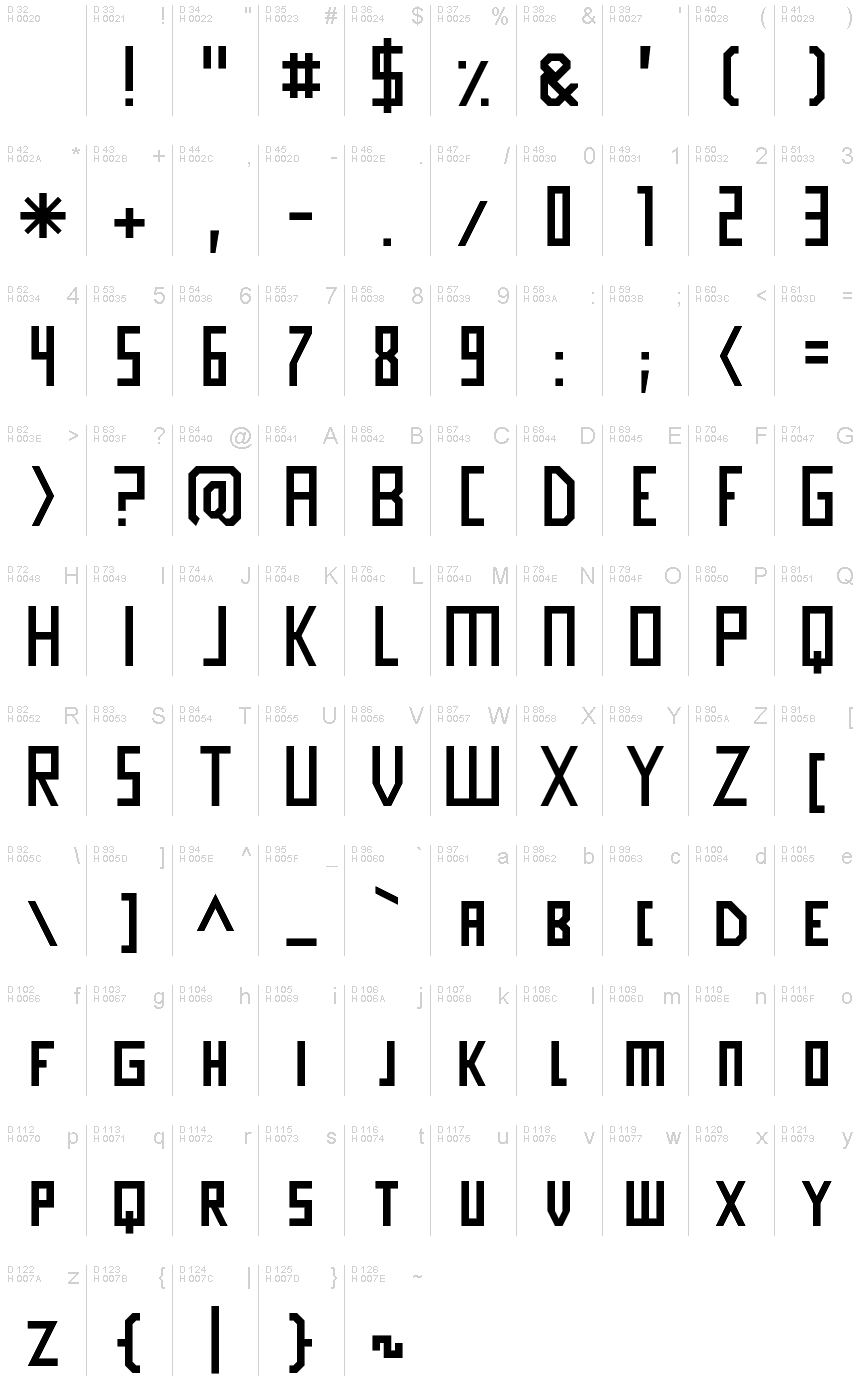
Imagine Slim Extra
This futuristic small cabs was created for my Game Project www.ImagineEarth.info A simple block techno square font for headlines and styles!
Imagine Slim Extra is part of the Imagine Font Family